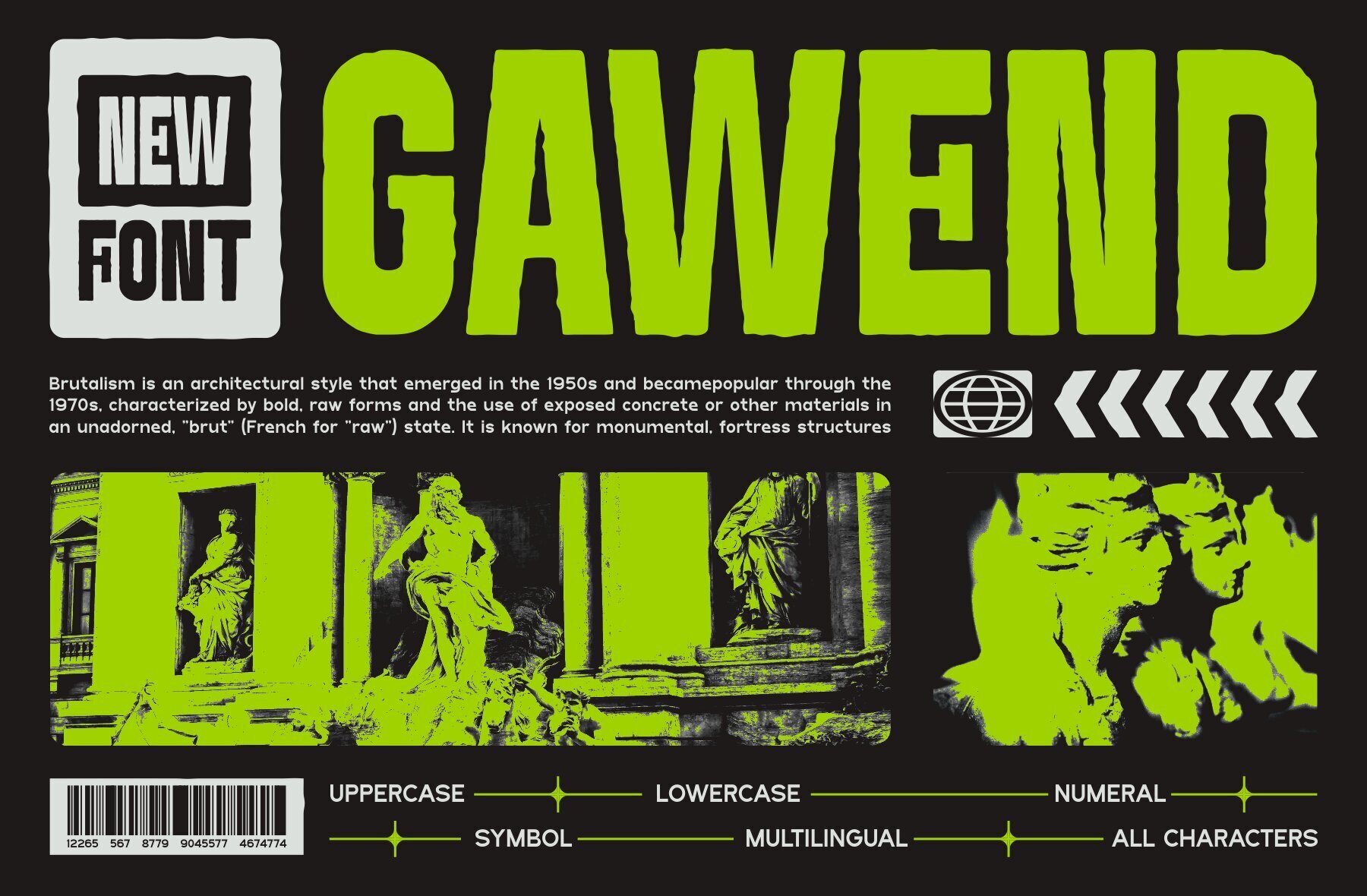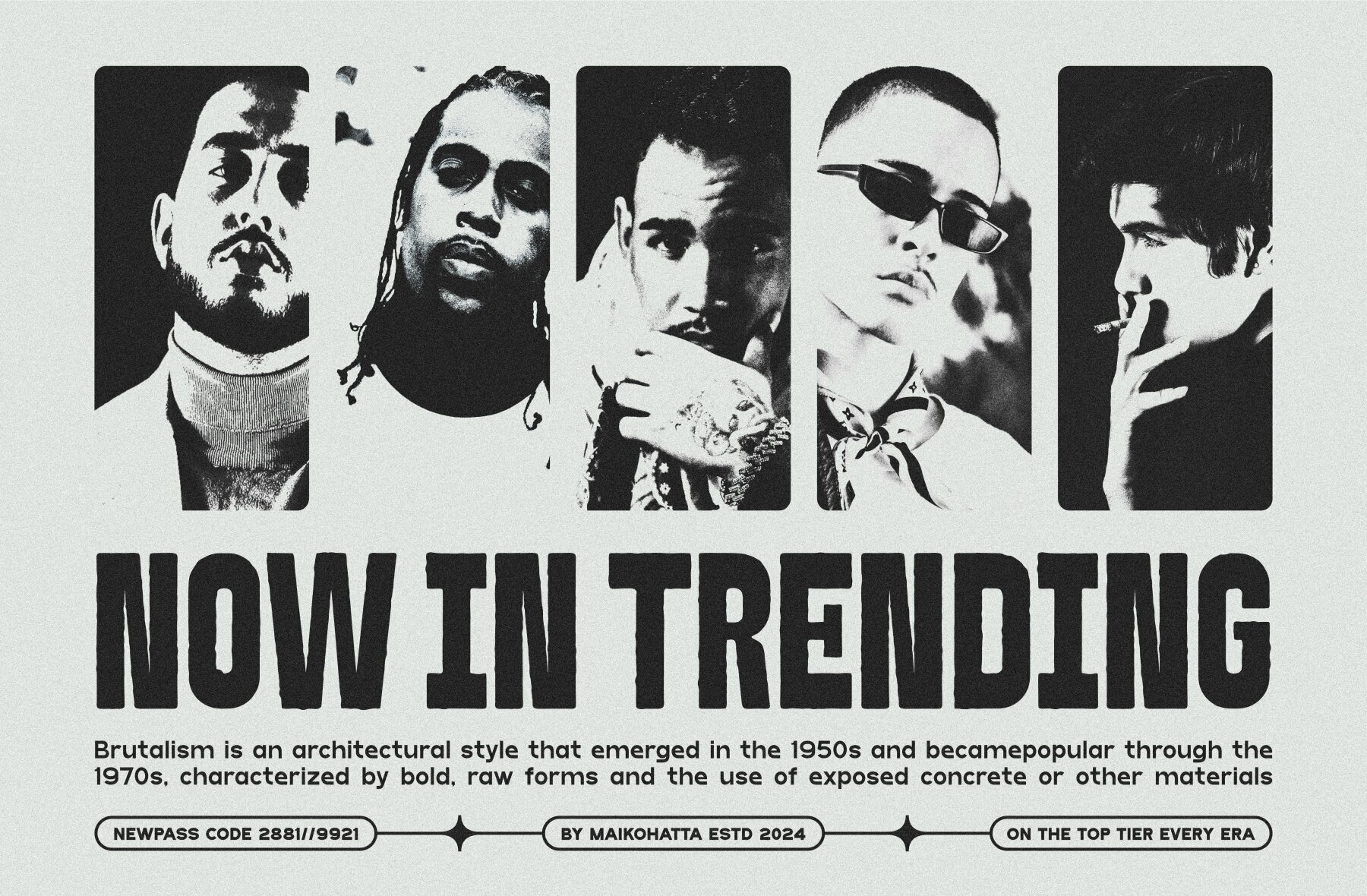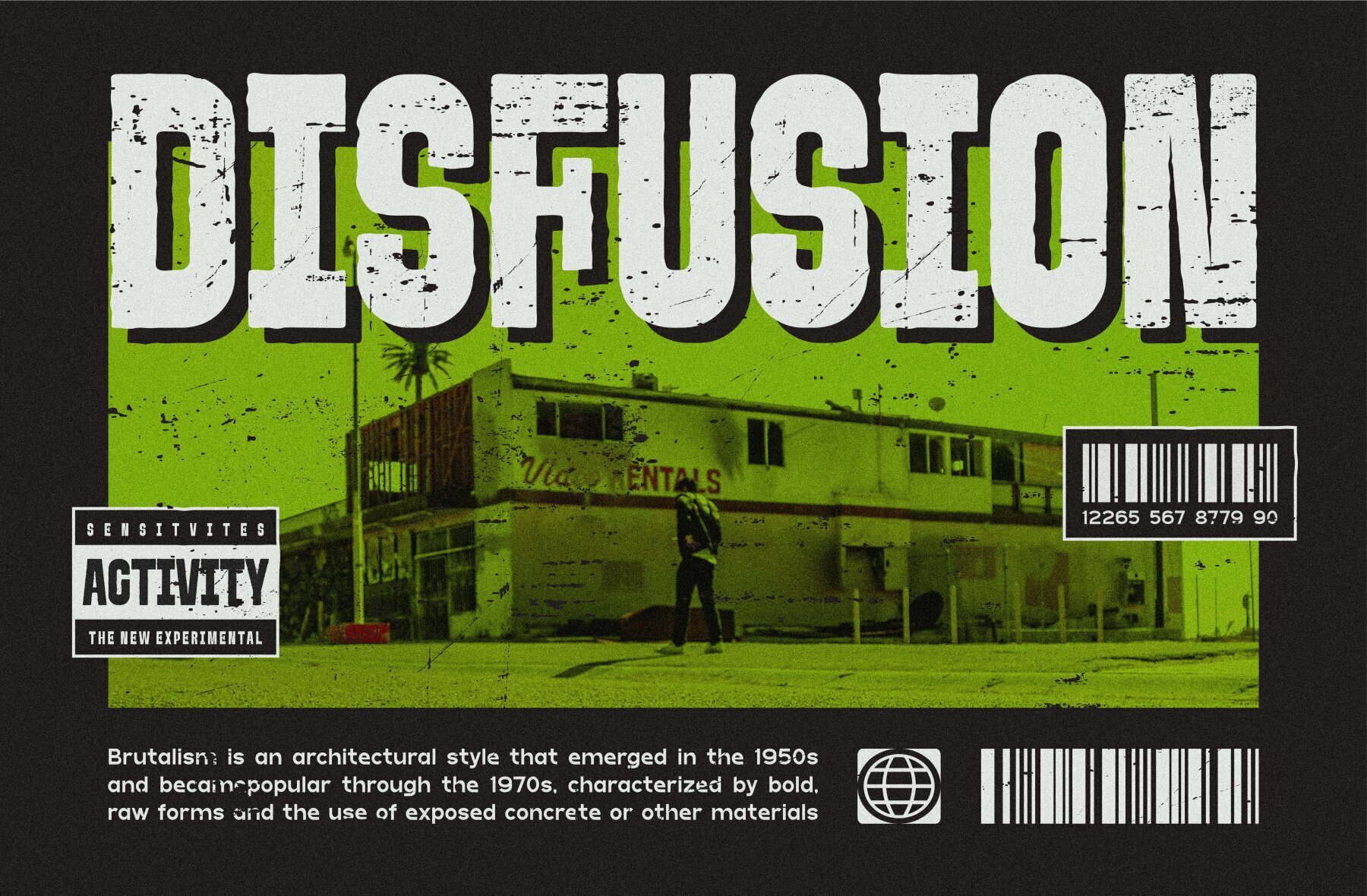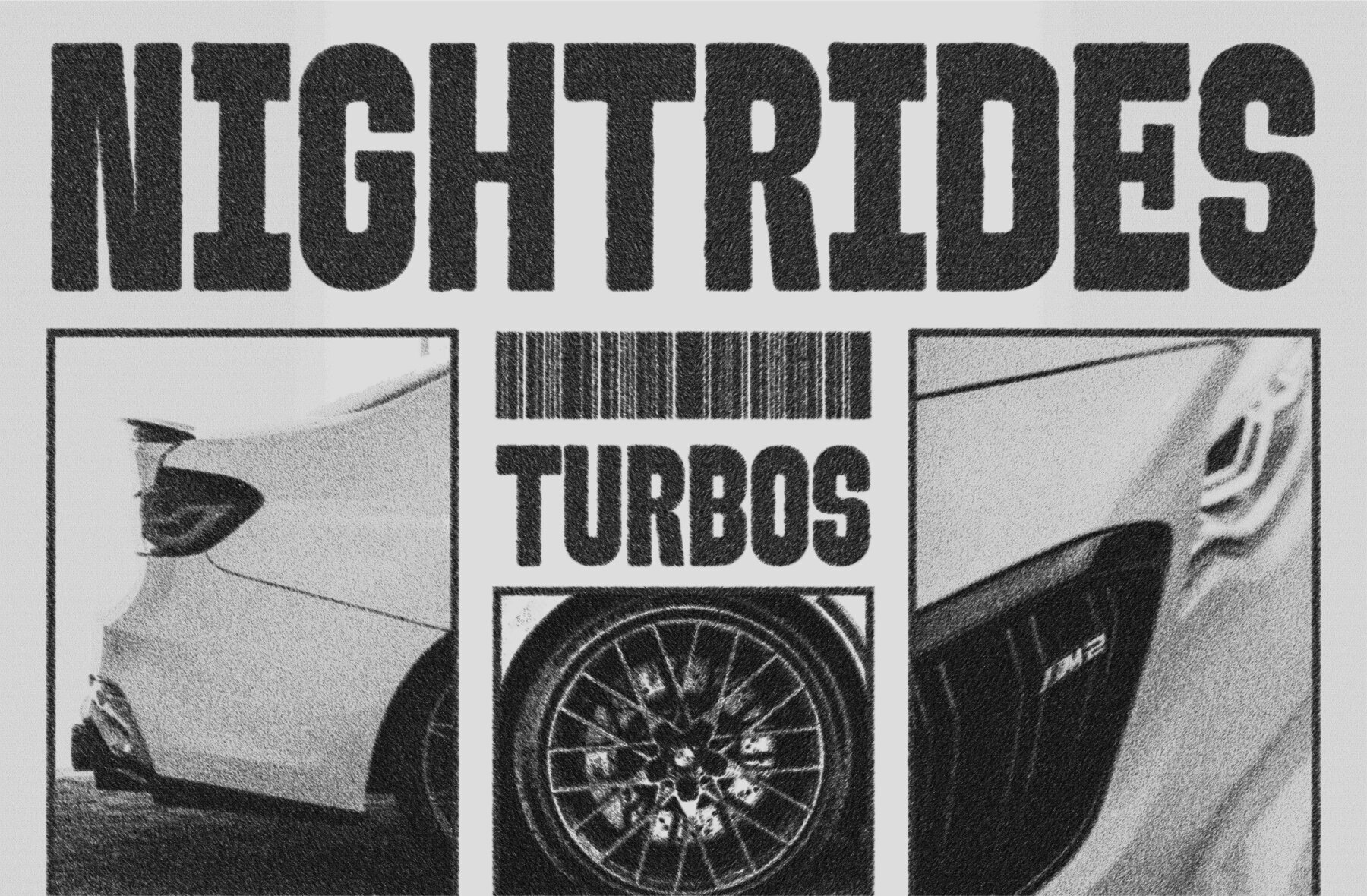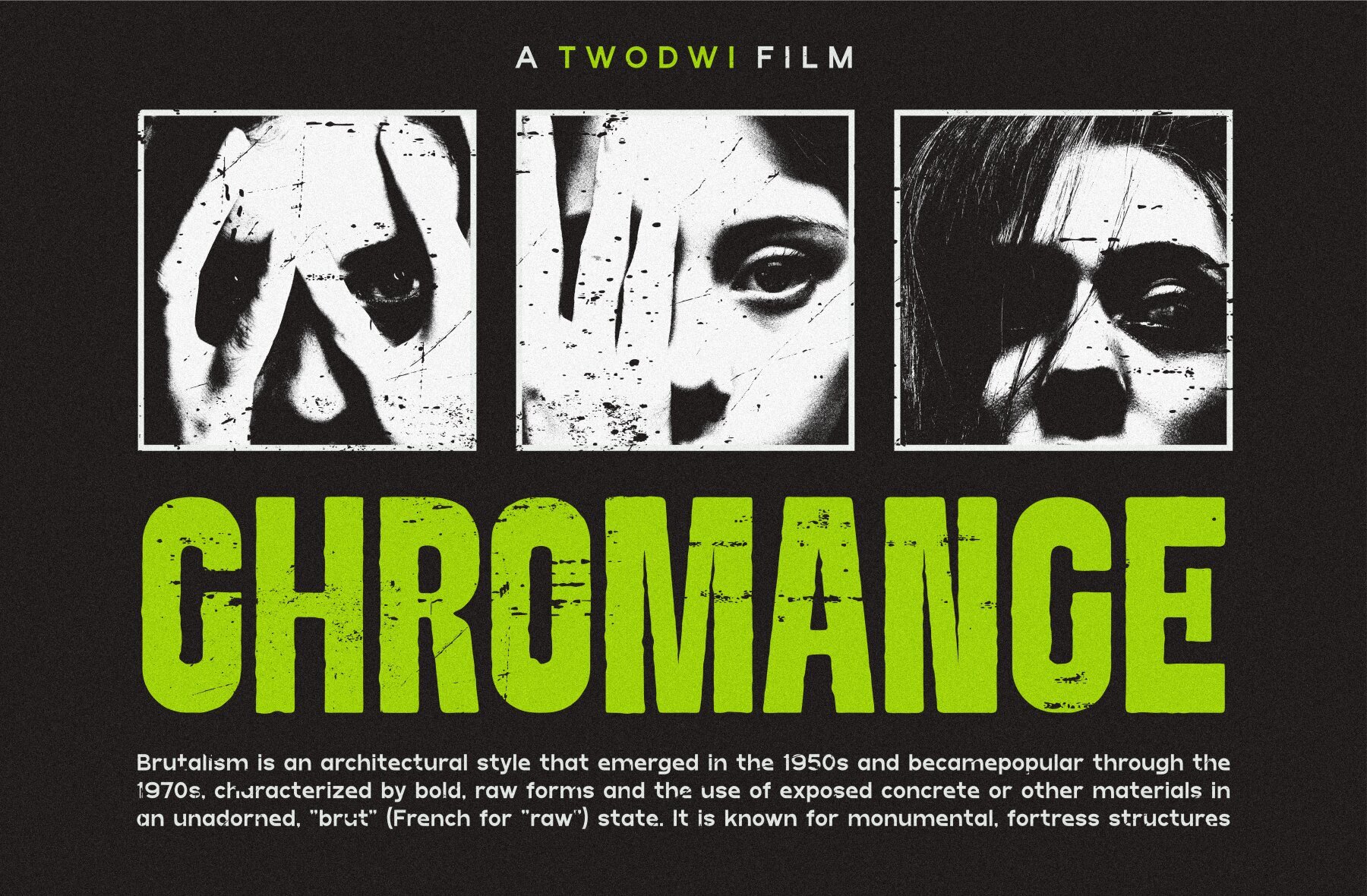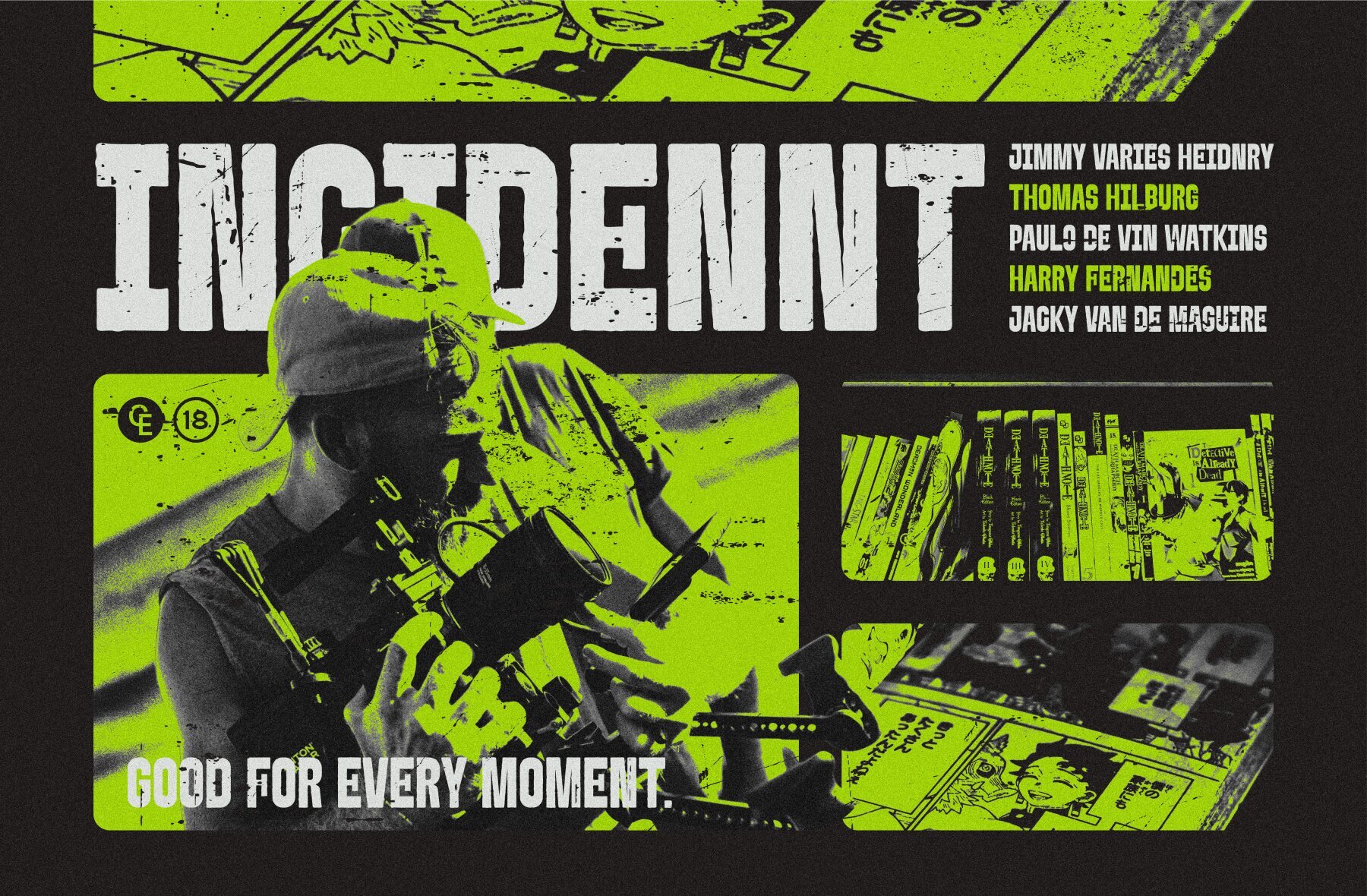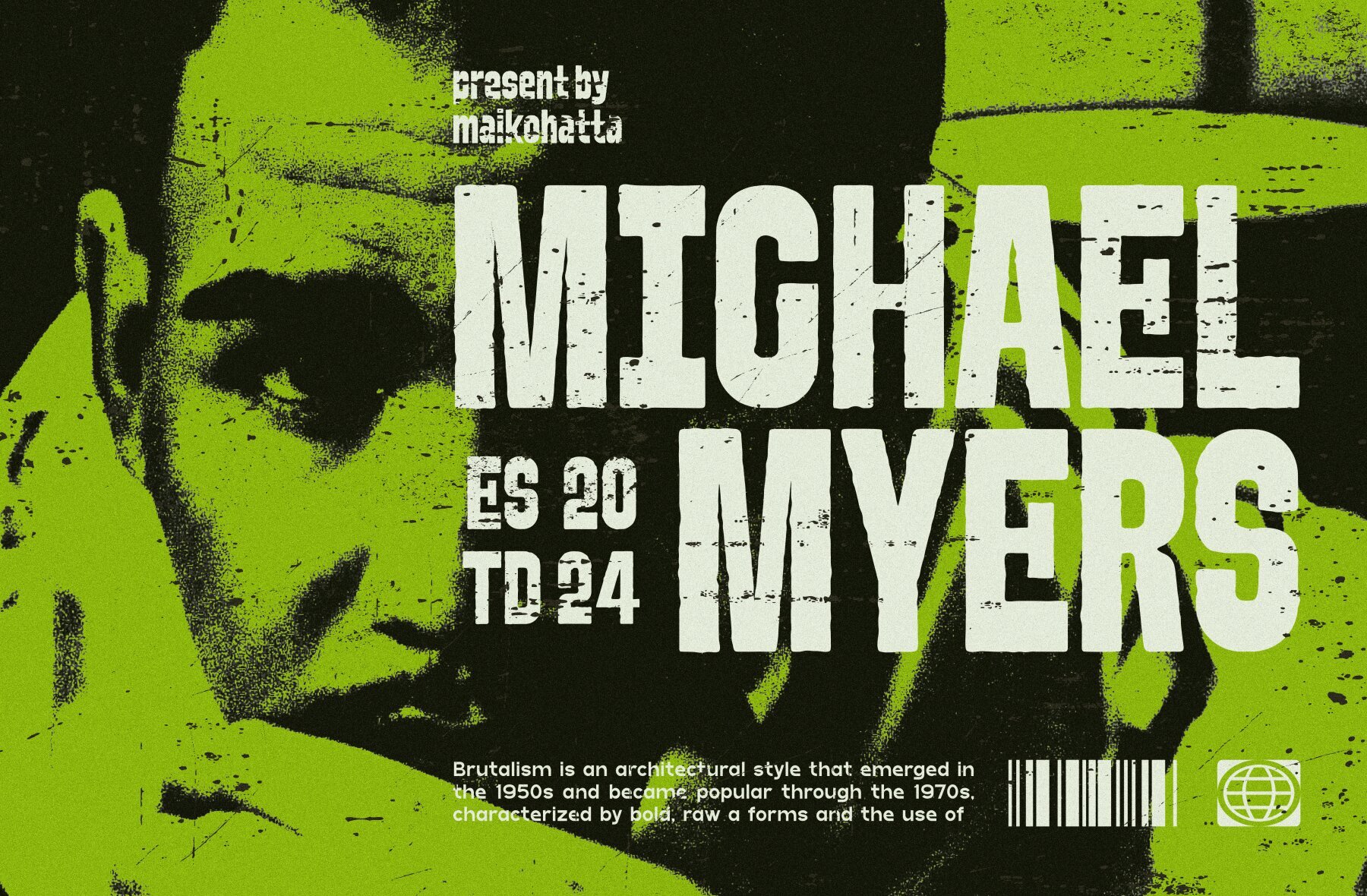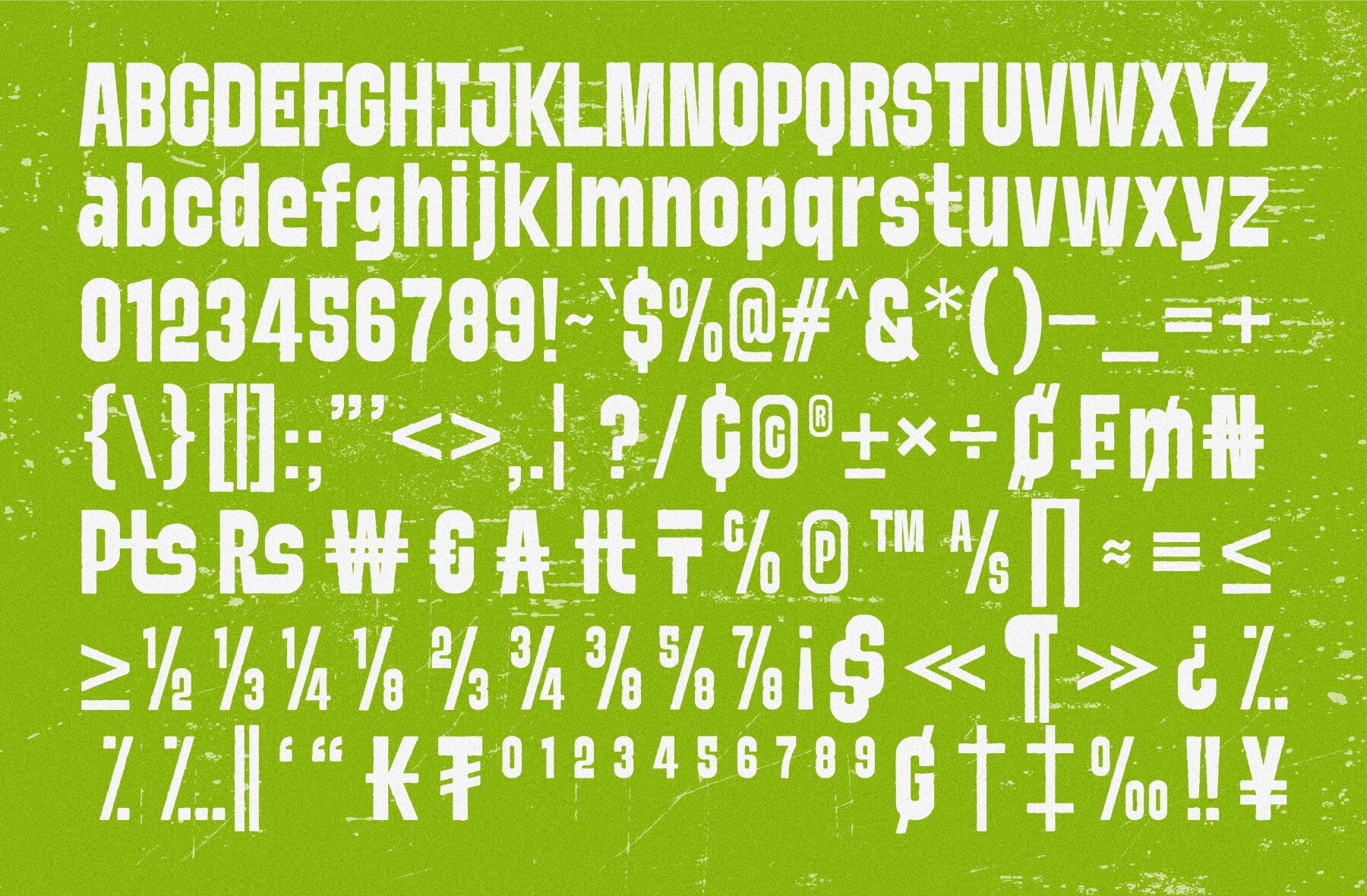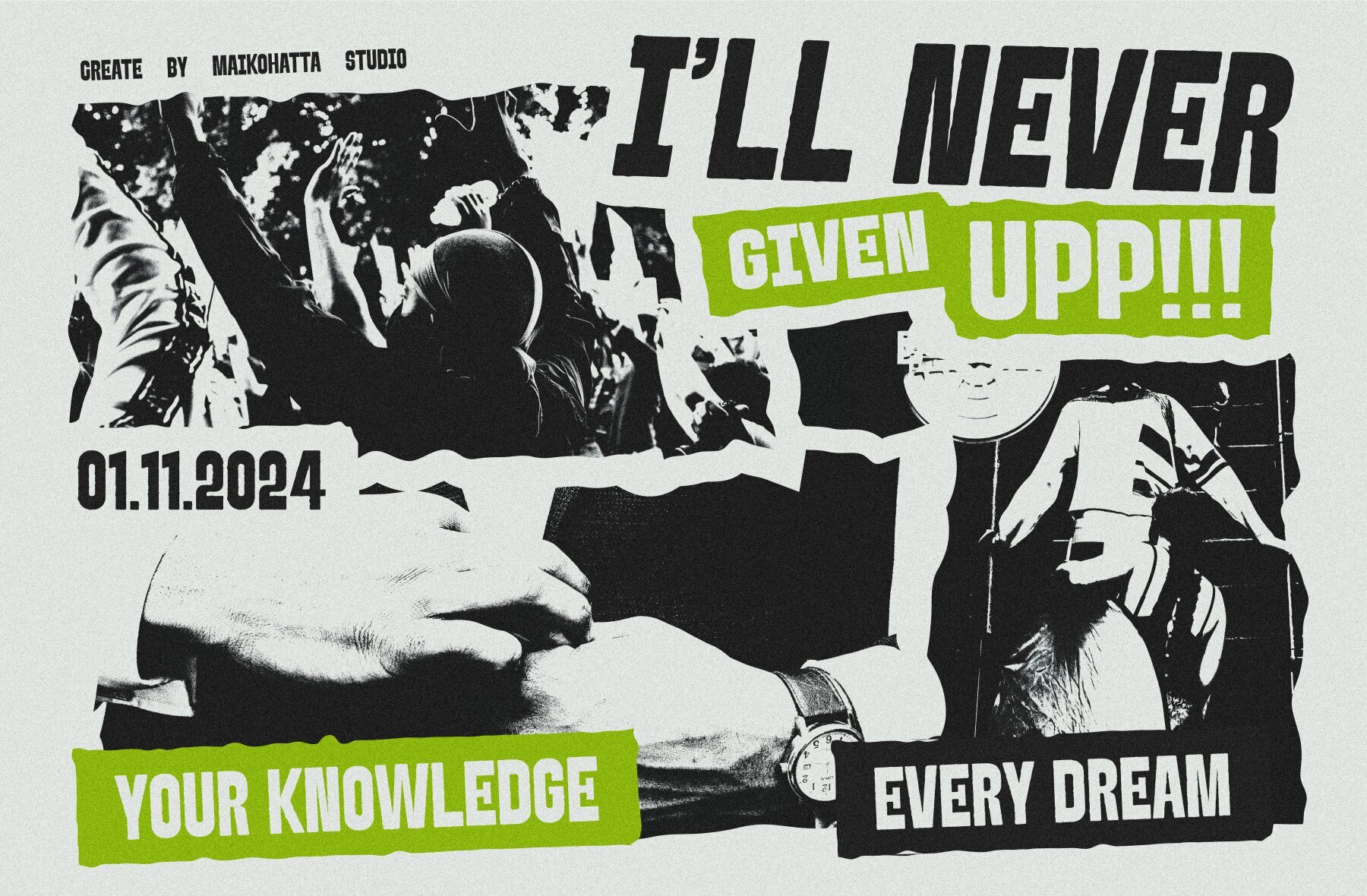
Gawend is a distinctive classic sans serif typeface, ideal for various branding endeavors such as logos, template designs, and esports graphics. This bold and authentic display font brings a versatile charm to diverse contexts.
Featuring uppercase and lowercase characters, Gawend supports multilingual use, making it a practical choice for international projects. Its clean, classic lines offer a strong visual presence, enhancing the impact of your design work.